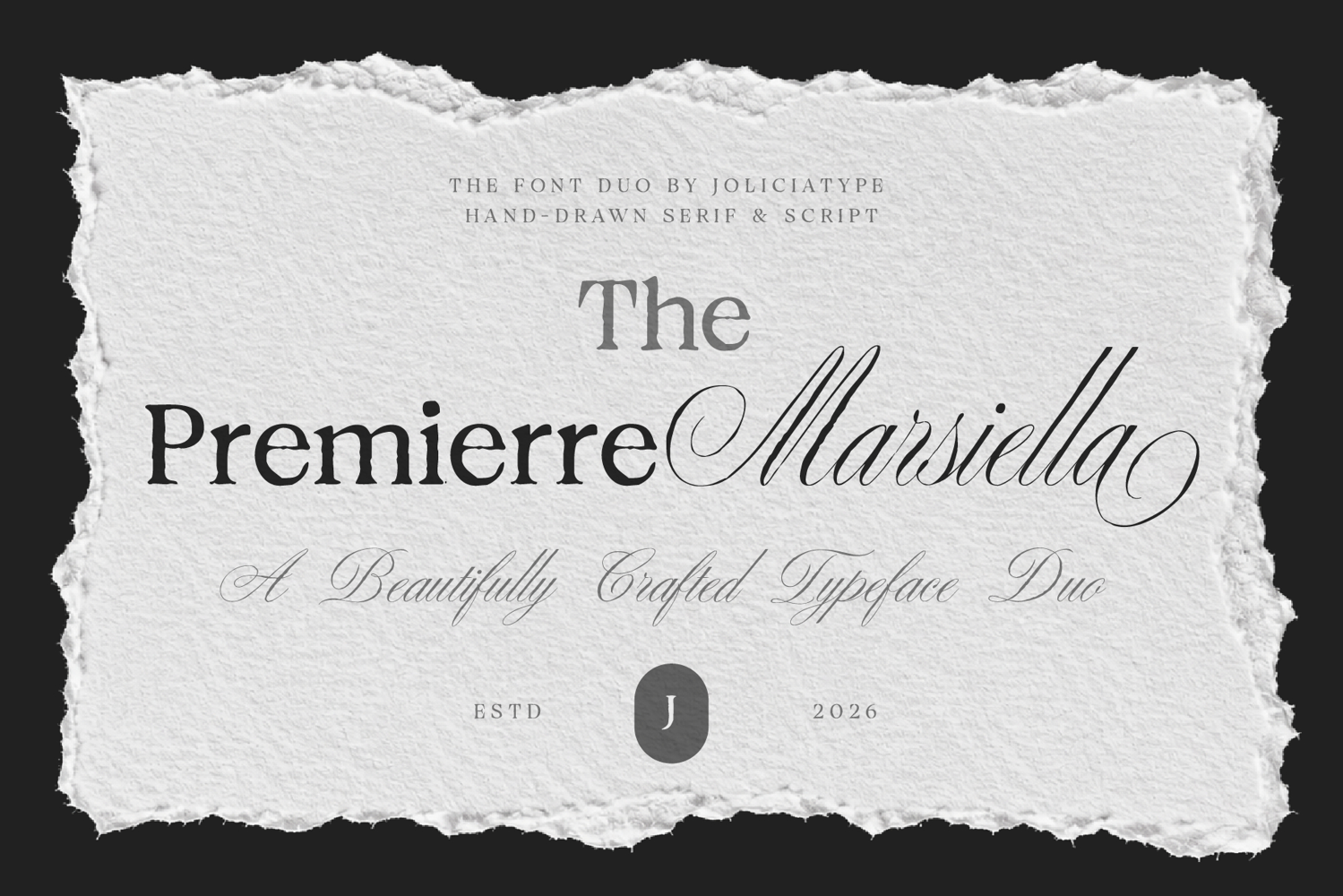
Premierre Marsiella | Font Duo
Premierre Marsiella is a luxurious font duo that combines the timeless elegance of an oldstyle serif with the graceful charm of a handwritten script. Created to deliver sophisticated visual harmony, this typeface pairing blends classic refinement and expressive character in one versatile collection.
The serif style features elegant proportions, refined details, and a premium editorial aesthetic, while the script counterpart flows naturally with smooth strokes and handcrafted appeal. Together, they create a beautiful contrast that enhances both modern and classic design projects.
Inspired by luxury branding, vintage romance, and high-end fashion aesthetics, Premierre Marsiella offers a distinguished and memorable appearance for creative work that requires elegance and sophistication. The combination of structured serif forms and flowing script lettering allows designers to build visually striking compositions with ease.